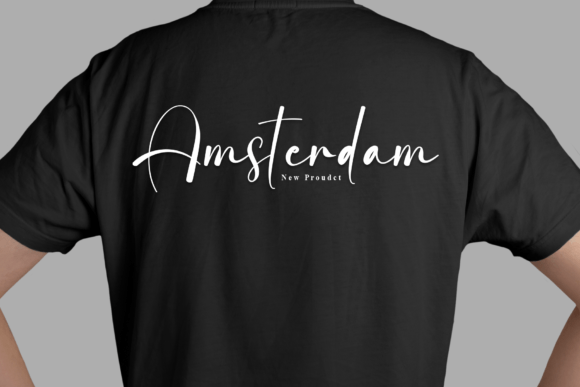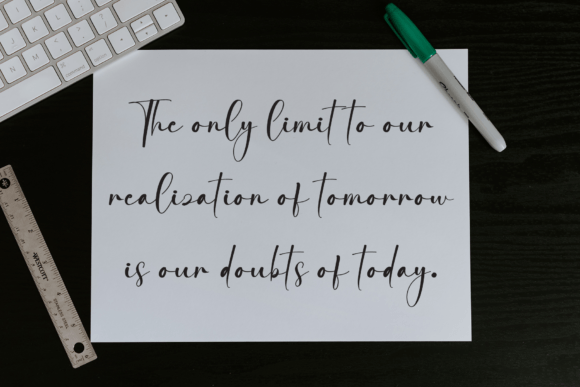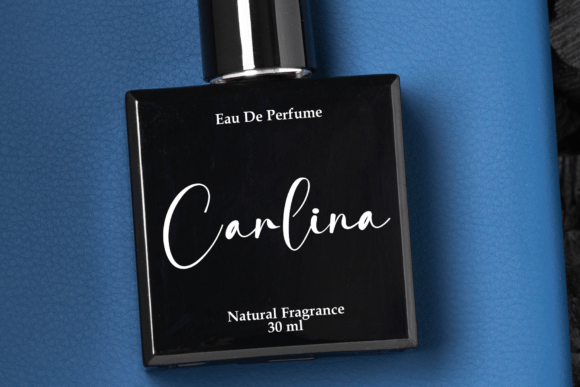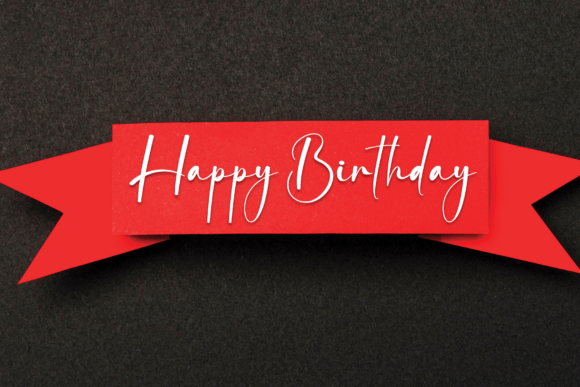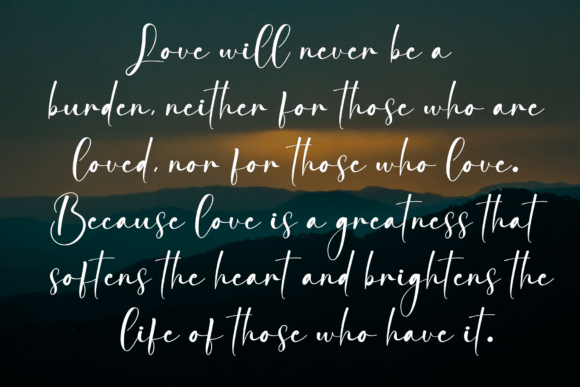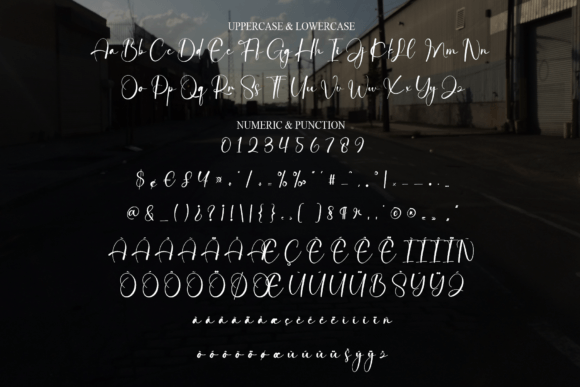
The Elusive Perfect Font: My Encounter with Blackside
I’ll never forget the time I was working on a wedding invitation project, and my client asked for a font that was “elegant, yet playful; sophisticated, yet personal.” I scoured the internet, tried out dozens of fonts, but nothing seemed quite right. That was until I stumbled upon Blackside, a stylish handwritten script font that stole my heart. In this article, I’ll share my experience with Blackside, its features, and how to make the most of it in your designs.
An Honest Review of Blackside
What I Love About Blackside ✨
- 💫 Fluid strokes and natural flow create a captivating, sophisticated look
- ✅ Perfect for adding a personal touch to invitations, branding, or social media
- 🎨 Brings a sense of warmth and creativity to any design
- 🖋️ Highly legible, even at smaller font sizes
- ⚠️ Limited availability of stylistic alternates, which may limit its use in certain design contexts
- 😐 Some users may find the font too ornate or cursive for certain projects
The Story Behind Blackside
Blackside was designed by a talented typographer who wanted to create a font that would evoke the feeling of elegance and sophistication. Inspired by classic calligraphy and modern handwriting, Blackside is the result of careful craftsmanship and attention to detail. Whether you’re a designer, crafty hobbyist, or simply someone who appreciates beautiful typography, Blackside is sure to delight.
Q: What type of projects is Blackside best suited for?
A: Blackside is perfect for projects that require a touch of elegance and sophistication, such as wedding invitations, branding, social media graphics, and more.